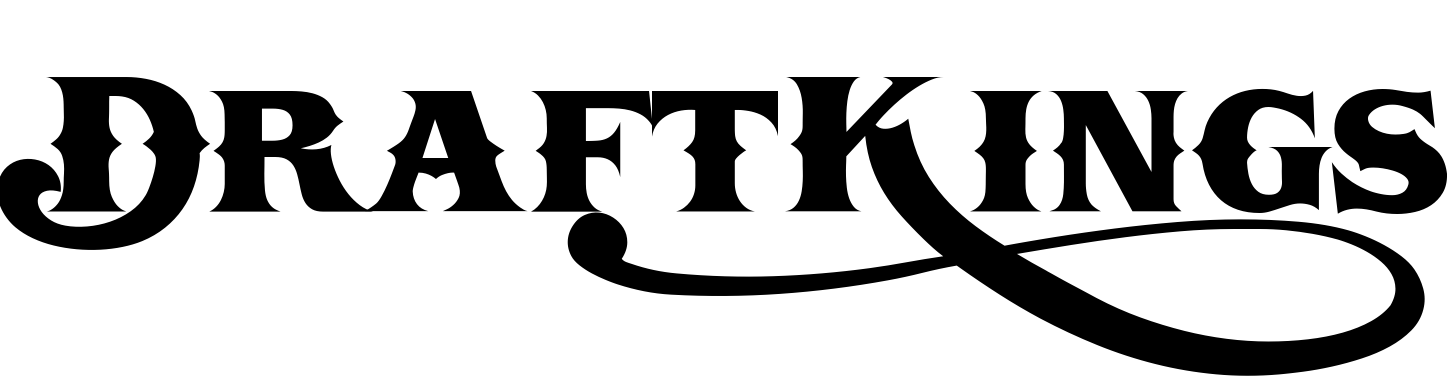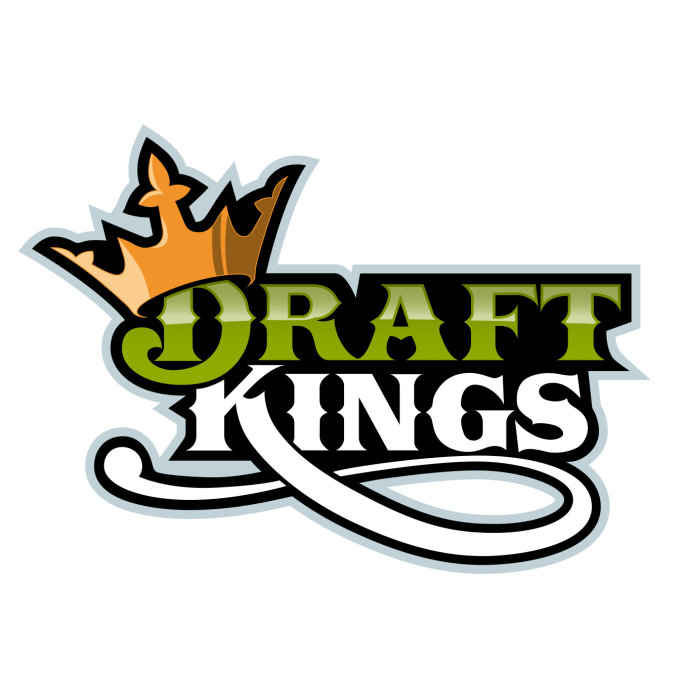
DraftKings Logo Font
Fonts in UseDraftKings is a prominent online sports betting and daily fantasy sports platform, offering users the opportunity to engage in various sports-related contests and win cash prizes.
The DraftKings logo uses the Boston Truck Style font. This decorative font from LetterHeadFonts has two versions: Boston Truckstyle SC has larger decorative caps alongside regular lowercase keys (small caps), while Boston Truckstyle C has decorative caps with all letters set at the same height.